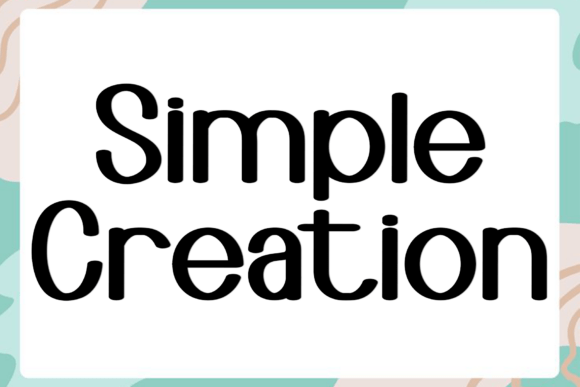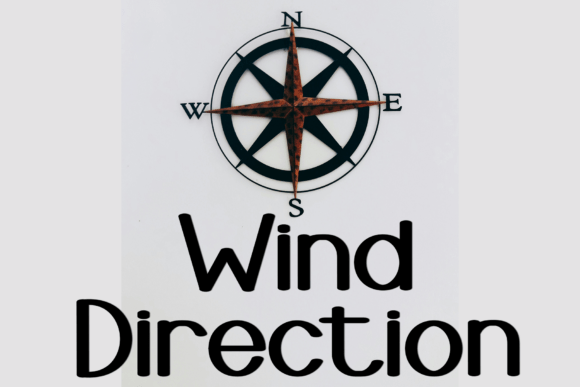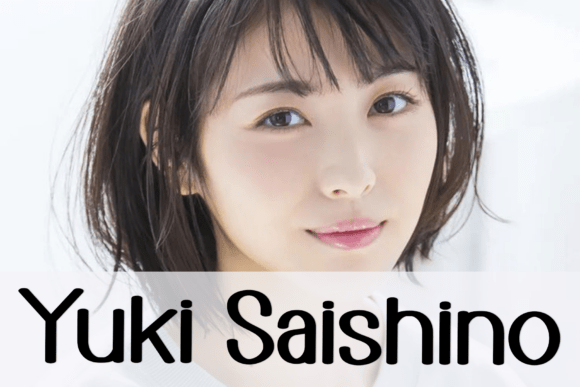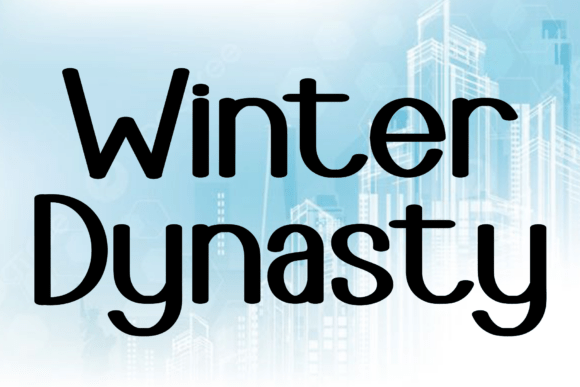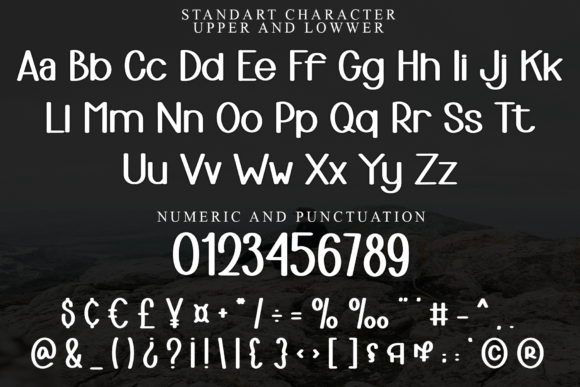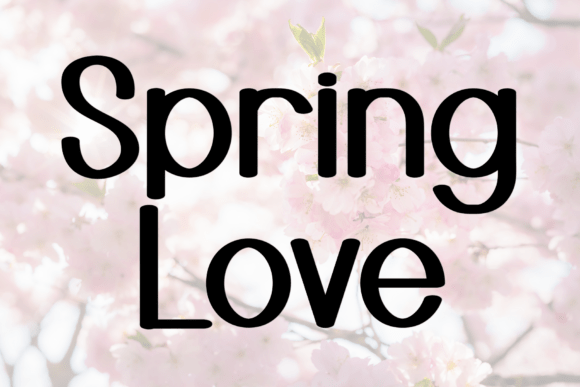
Introduction to Morning Person Font
Have you ever found yourself lost in the creative process, staring at a blank page, waiting for the perfect font to bring your design to life? For many designers, that moment of inspiration is what drives them to create something truly special. For those who crave that elusive spark, we’re excited to introduce the Morning Person Font, a beautiful and eye-catching design resource that’s sure to ignite your imagination.
With its soft, unique touch and distinctive strokes, the Morning Person Font is a game-changer for any creative project. Whether you’re working on a logo, brochure, or social media graphic, this versatile font is sure to elevate your design and make it stand out from the crowd. Plus, its transparent background and high-quality design make it the perfect choice for a wide range of applications, from digital projects to print materials.
Key Features of Morning Person Font
- High-quality, modern sans-serif design perfect for creative projects and designs.
- Features a transparent background, allowing for easy customization and layering.
- Designed with a clean and minimalist aesthetic, ideal for use in logos, typography, and branding materials.
Honest Review: Morning Person Font
As a designer, I’m always on the lookout for high-quality design resources to elevate my creative projects. The Morning Person Font is one such resource that caught my attention recently.
One thing that stands out about this font is its uniqueness. It’s a clean and modern sans-serif font that’s perfect for creating eye-catching headlines and titles.
- ✨ Unique design aesthetic that sets it apart from other fonts
- ✨ High quality, smooth lines and curves that make it a pleasure to work with
- ✨ Transparent background, allowing for seamless integration with other design elements
However, I do have a few reservations about this font. The character set is a bit limited, which may not be suitable for projects that require a wide range of characters.
- ⚠️ Limited character set, which may not be ideal for projects with complex typography
- ⚠️ Not suitable for projects that require a high level of customizability
Overall, I’m impressed with the Morning Person Font’s unique design and high quality. While it may have some limitations, it’s an excellent choice for designers looking for a modern and eye-catching font for their creative projects.
Getting the Most Out of Morning Person Font
- Flyers and brochures.
- Social media graphics and advertisements.
- Presentations and documents.
Alternatives to Morning Person Font
Alice
Alice is a modern sans-serif font that is perfect for creative projects that require a clean and minimalist design. It features a transparent background, making it ideal for overlaying text on images. Alice is available for free download and comes in high quality. When to use: Newsletters, magazines, and websites that require a professional and sleek design. Compared to Morning Person Font, Alice is more modern and has a more subtle feel.
Is the Morning Person Font suitable for large-scale designs?
Yes, the Morning Person Font is designed to be scalable, making it suitable for large-scale designs, such as billboards, posters, and signage. Its high-quality design ensures that it will look great even at large sizes, without losing any detail or clarity.